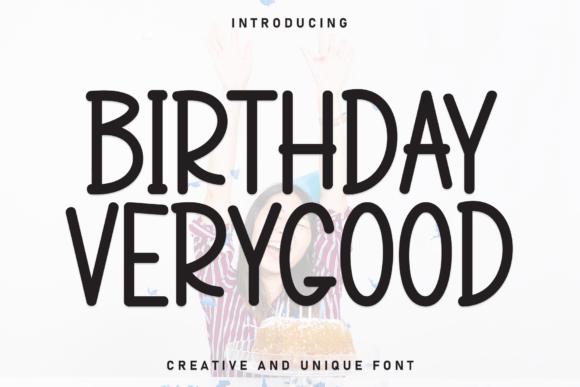
The Birth of a Magical Font: A Designer’s Delight
I’ll never forget the time I was working on a wedding invitation project, and my client asked for a font that would make their special day feel like a fairy tale. I scoured the internet, tried countless fonts, but nothing seemed quite right. That was until I stumbled upon the Birthday Verygood Font. Its charming, handwritten display instantly transported me to a whimsical world of wonder. In this article, I’ll share my journey with this delightful font, and how it can bring a spark of joy to your creations.
- ✨ Playful and approachable: The Birthday Verygood Font exudes a sense of fun and playfulness, making it perfect for wedding invitations, birthday cards, and more.
- ✅ Delightful character: Each letter is carefully crafted to bring a smile to your face, injecting a burst of personality into your designs.
- 💫 Magical storytelling: This font has a way of making your visual storytelling feel enchanting and whimsical.
- ⚠️ Limited use in formal designs: While the font is perfect for playful projects, it might not be the best fit for more formal or corporate designs.
- 🤔 Some letter combinations: As with any handwritten font, some letter combinations might not flow as smoothly as you’d like.
The Designer Inspiration Behind Birthday Verygood Font
The Birthday Verygood Font was crafted with love and care by a talented designer who wanted to create a font that would bring joy to people’s lives. Inspired by the magic of childhood and the whimsy of handwritten letters, this font is a reflection of the designer’s passion for storytelling and creativity.
Q: What makes the Birthday Verygood Font so special?
A: The Birthday Verygood Font is special because of its unique, playful character and delightful personality. It’s perfect for adding a touch of magic to your designs.